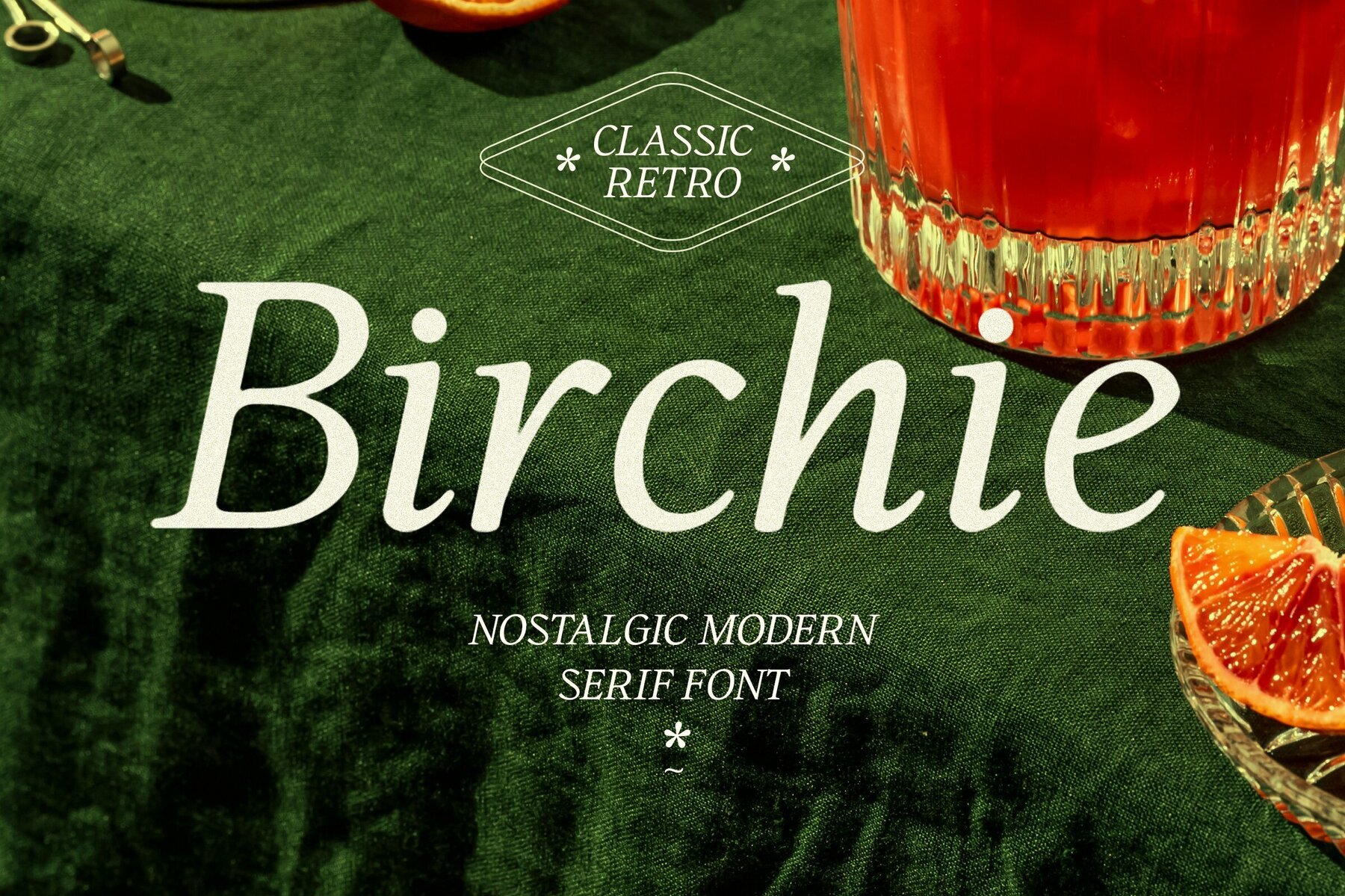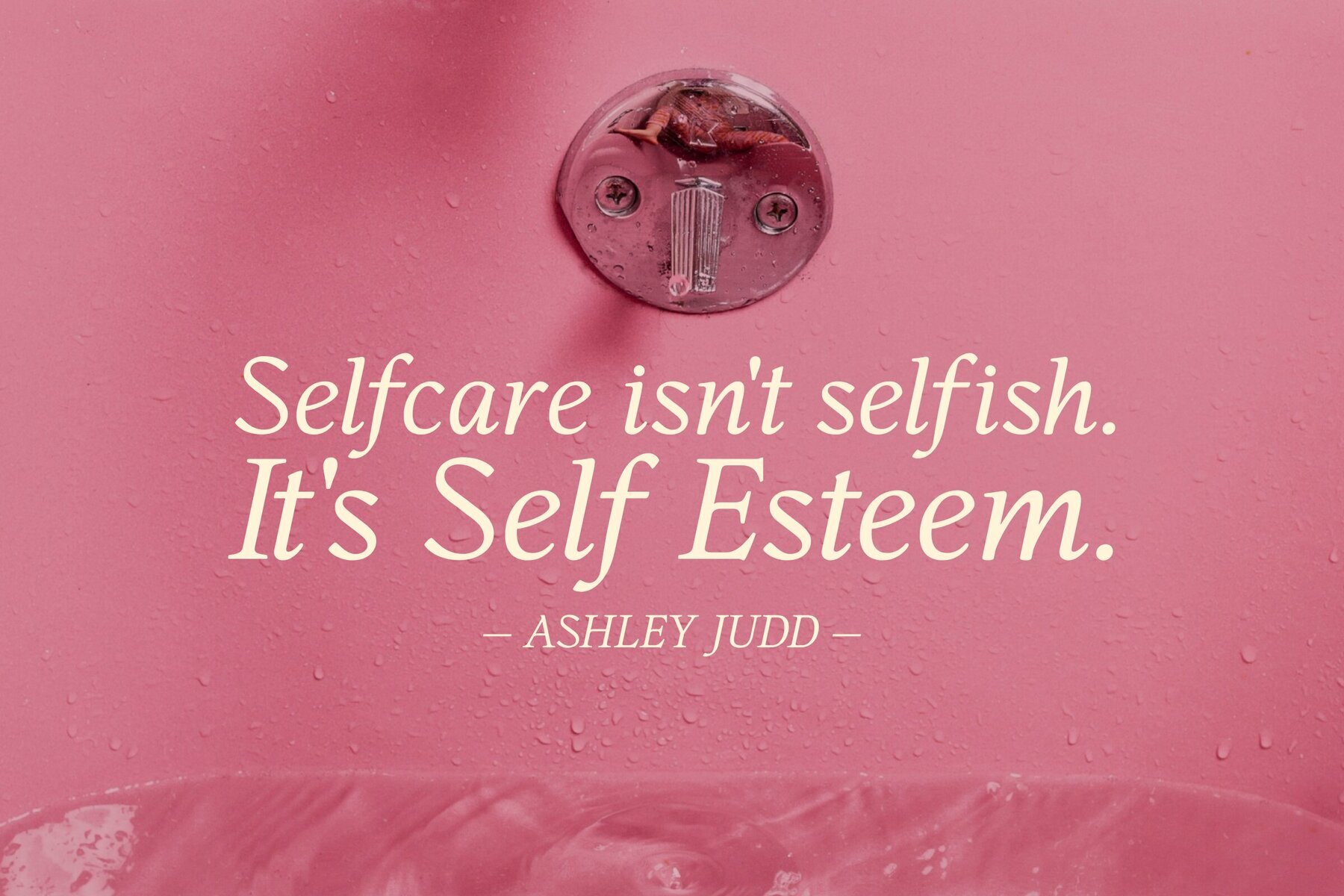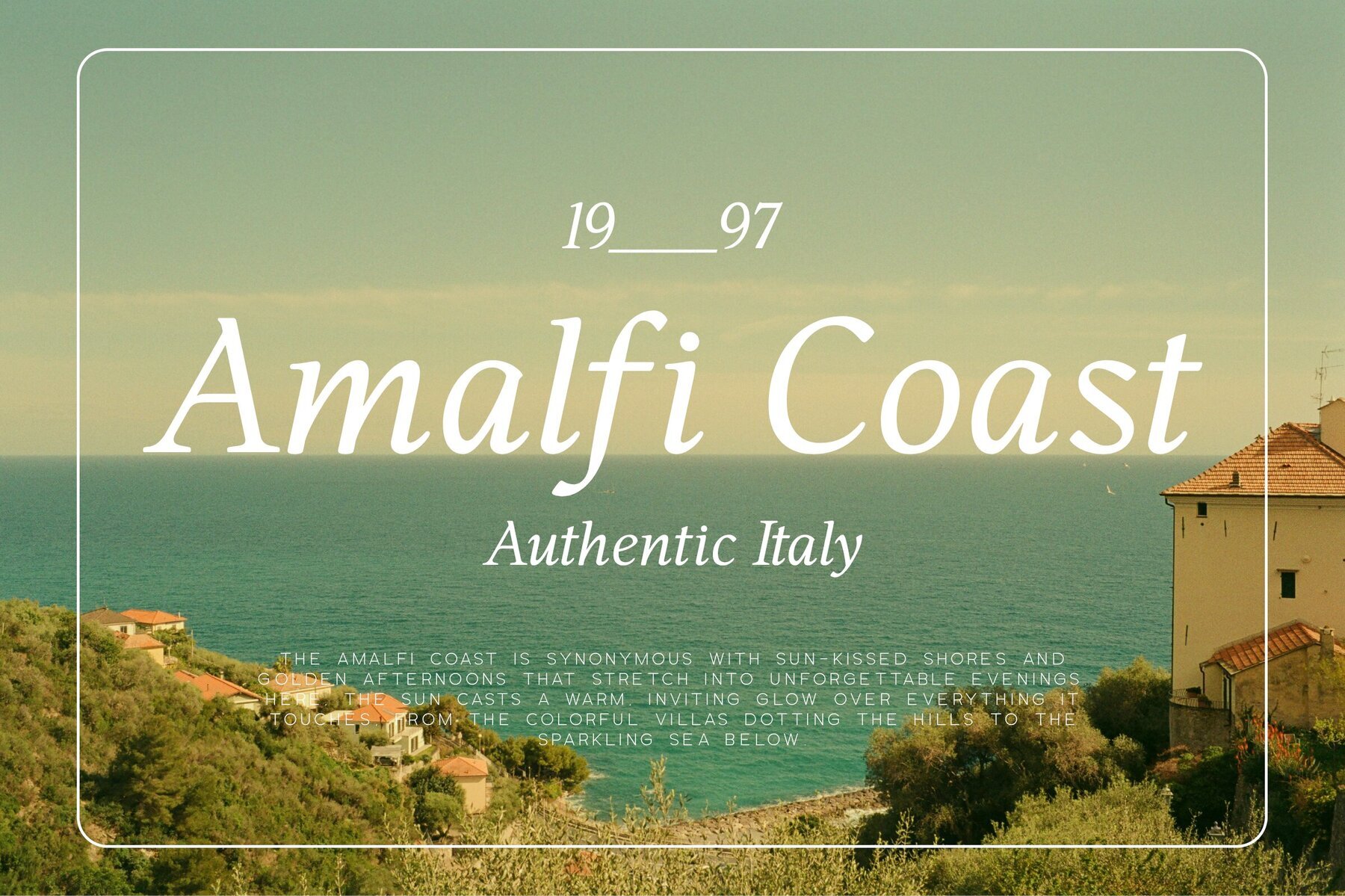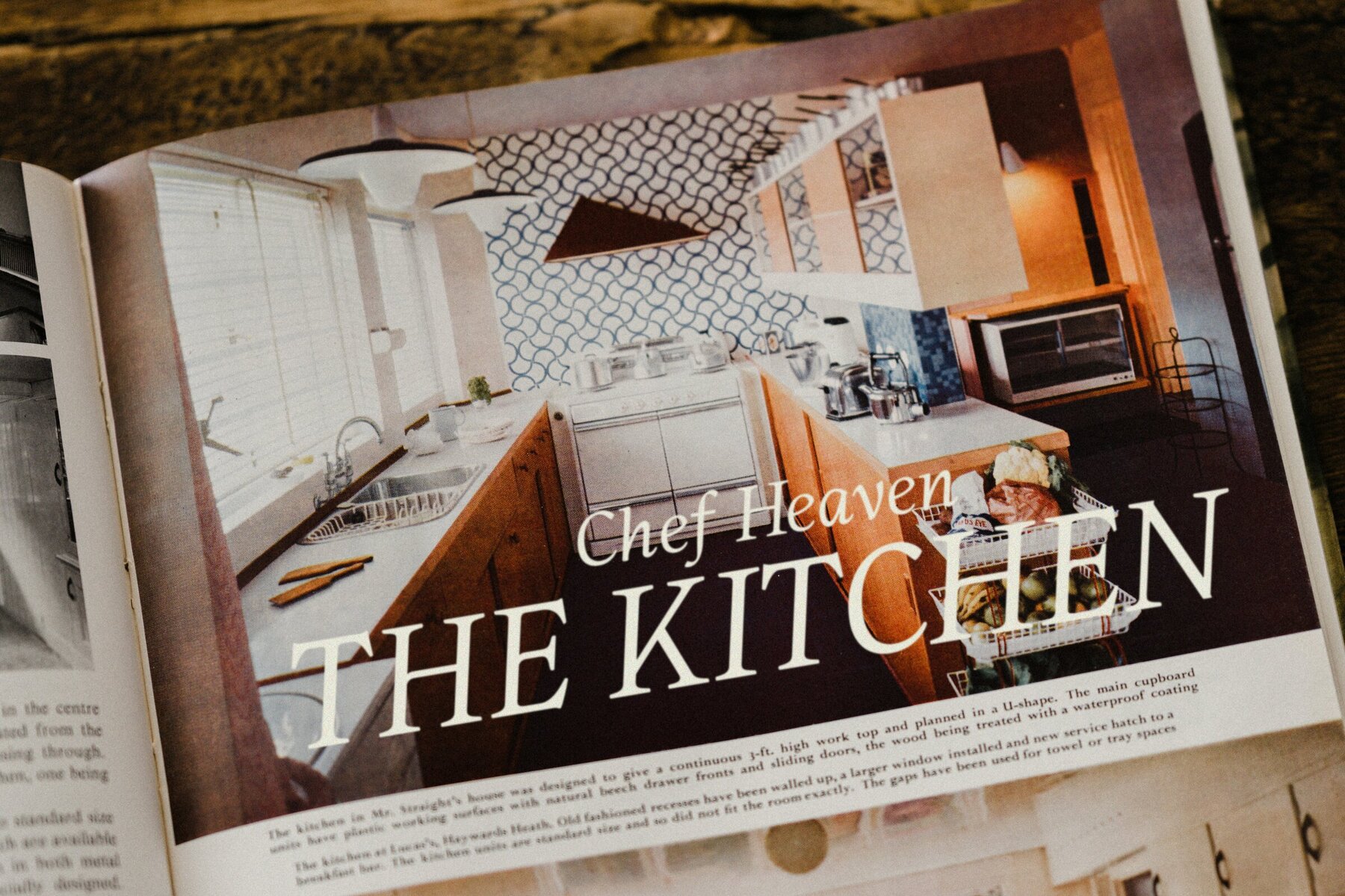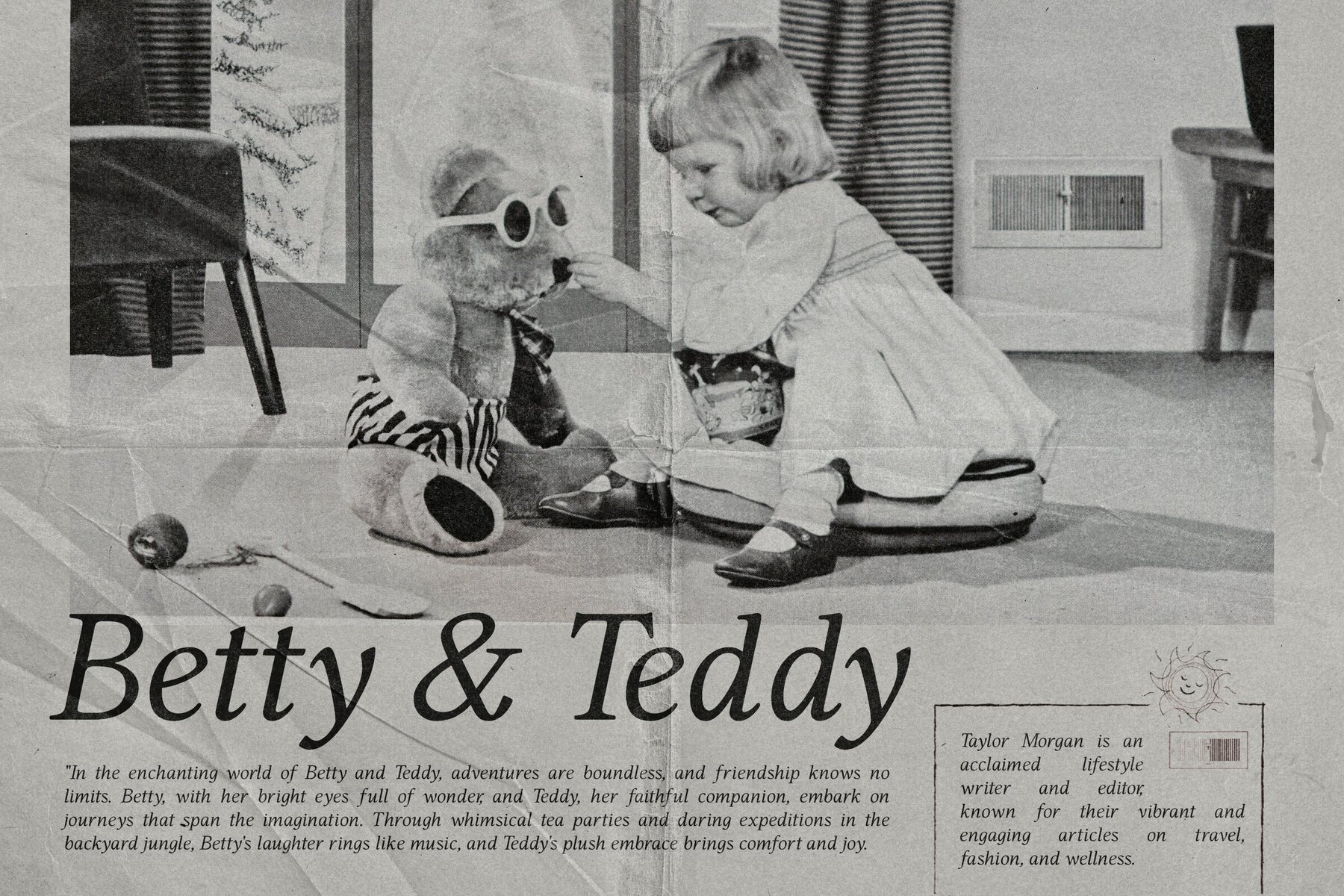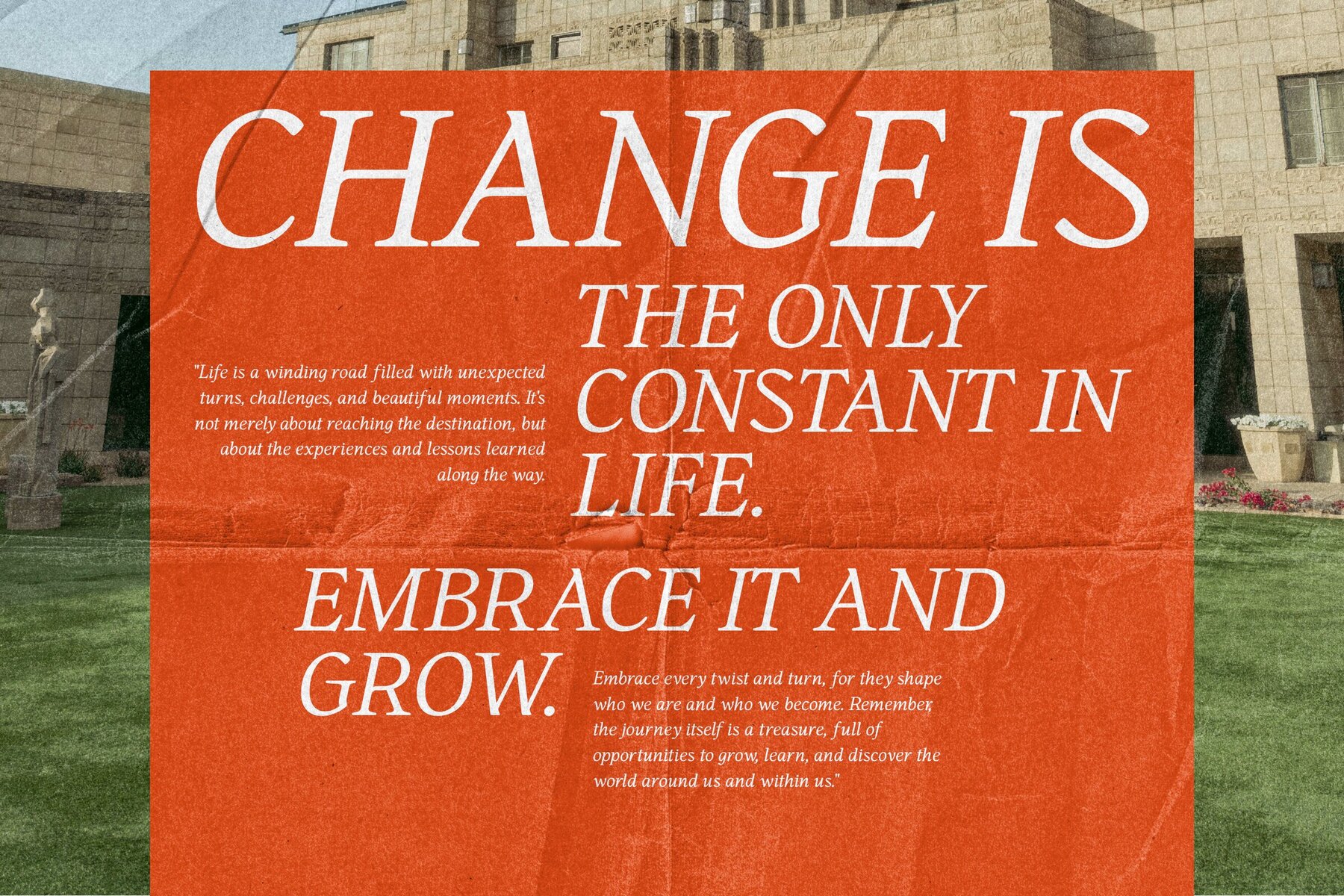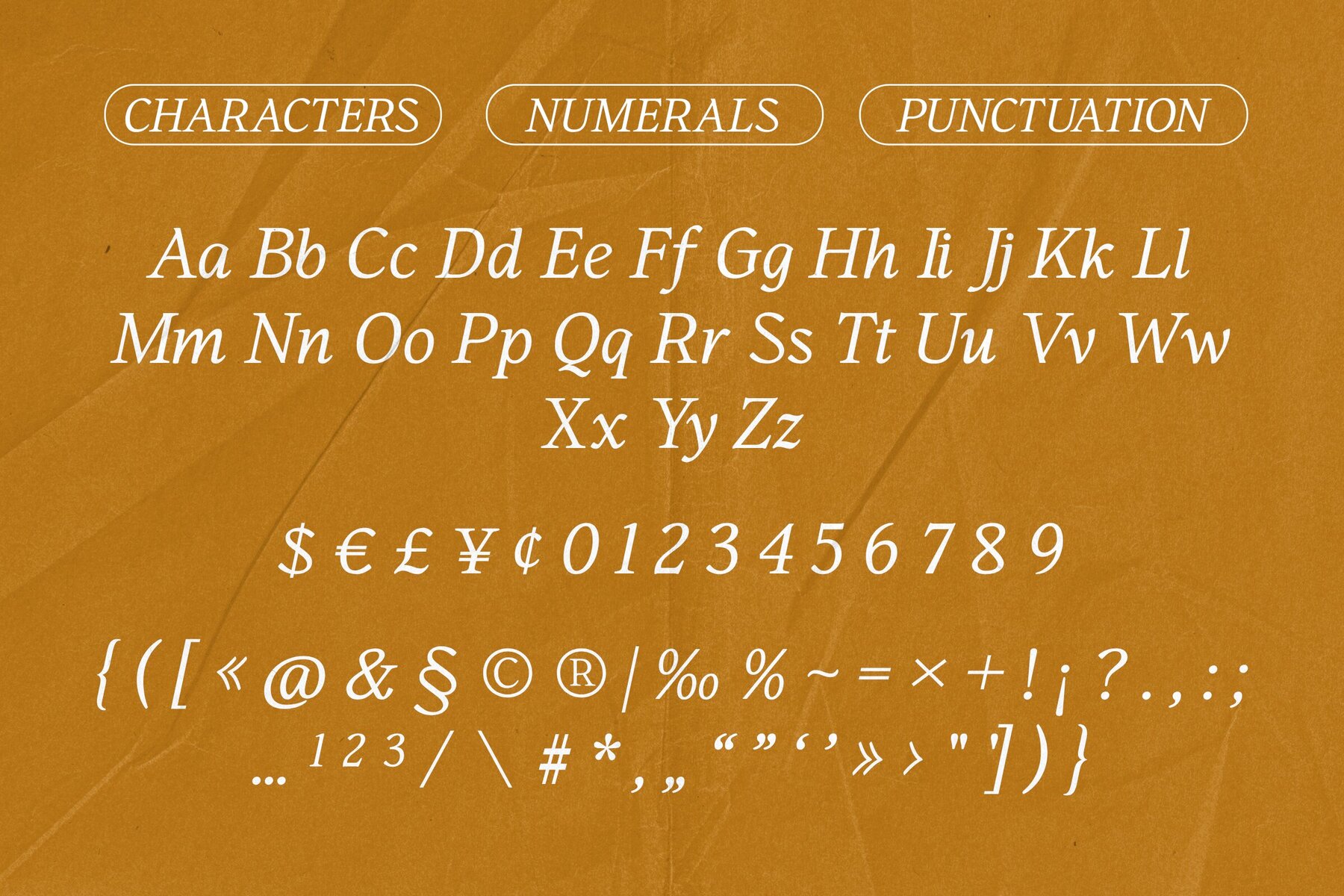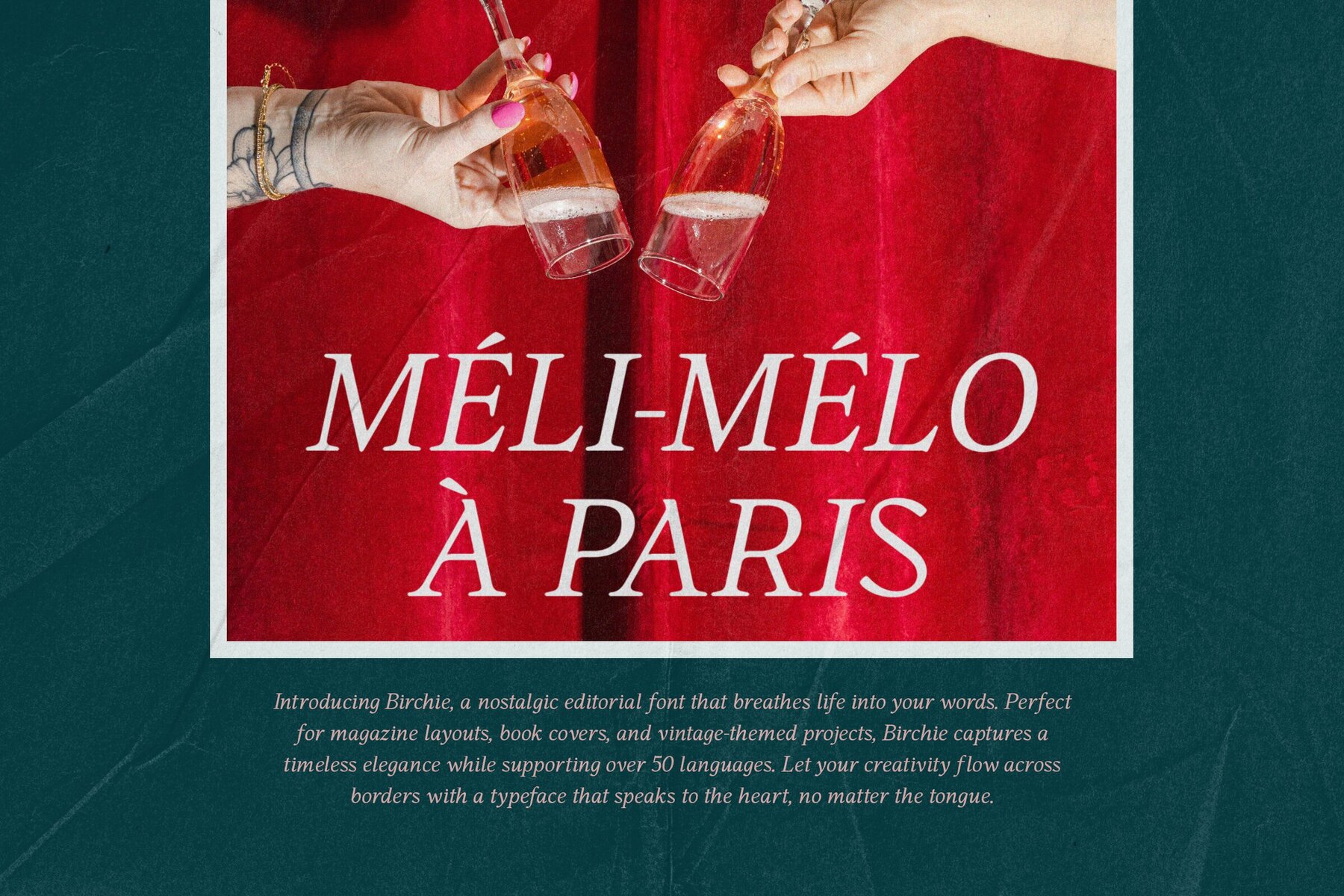
Birchie Font
Birchie Regular
Birchie is a beautifully crafted serif font that seamlessly blends nostalgic charm with contemporary sophistication. Featuring graceful, slightly italicized characters, Birchie adds a timeless touch to any project. Perfect for branding, editorial design, invitations, and more, this font will evoke a sense of classic beauty while maintaining a fresh, modern edge. Add Birchie to your collection today!